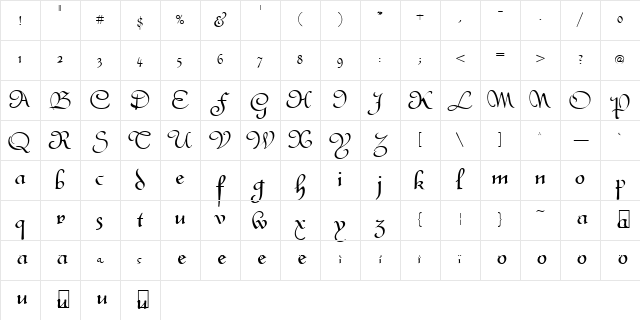
Base:Christmas Light
Design Context for Base:Christmas
Base:Christmas is a composed and adaptable typeface that performs quietly and consistently across a wide range of design contexts. Its slender proportions lend an understated elegance to any composition.
Pro Tip: Use Base:Christmas in both headline and body roles to test its range before committing to a single application.